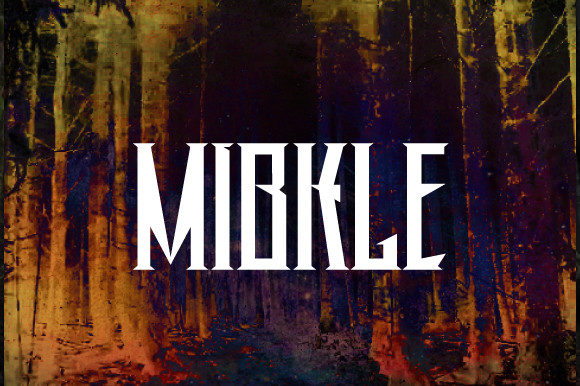
Introducing Mibkle Font, the bold and impressive serif font that exudes confidence and professionalism. Crafted by the skilled hands of Muhammadfaisal40, Mibkle is not just a font; it's a statement piece that elevates your designs to new heights of excellence.
Mibkle's thick, assertive letters command attention and leave a lasting impression. Its strong, sturdy structure conveys a sense of authority and poise, making it the perfect choice for business letters, formal documents, and marketing materials. With Mibkle, your words carry weight and impact, leaving a lasting impression on your audience.
Whether you're a seasoned designer or just starting, Mibkle is the font you need to take your creations to the next level. Its versatility extends beyond business documents; it shines in logos, headlines, posters, and more. Its bold presence adds a touch of sophistication and elegance, transforming ordinary designs into captivating masterpieces.
Mibkle is more than just a font; it's an investment in your creative arsenal. Its timeless design ensures that it will never go out of style, making it a font you'll use time and again. So why settle for ordinary fonts when you can unleash the power of Mibkle and watch your designs soar? Experience the difference and see how Mibkle transforms your work into something truly extraordinary.